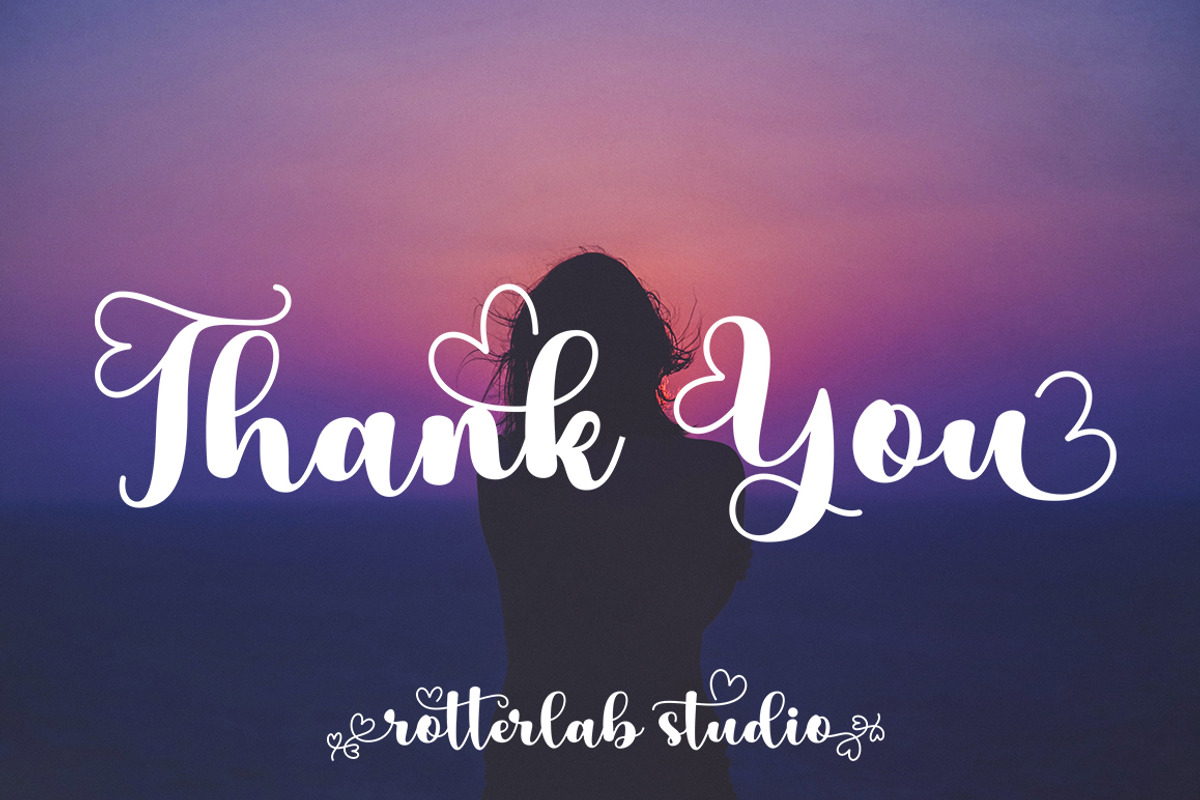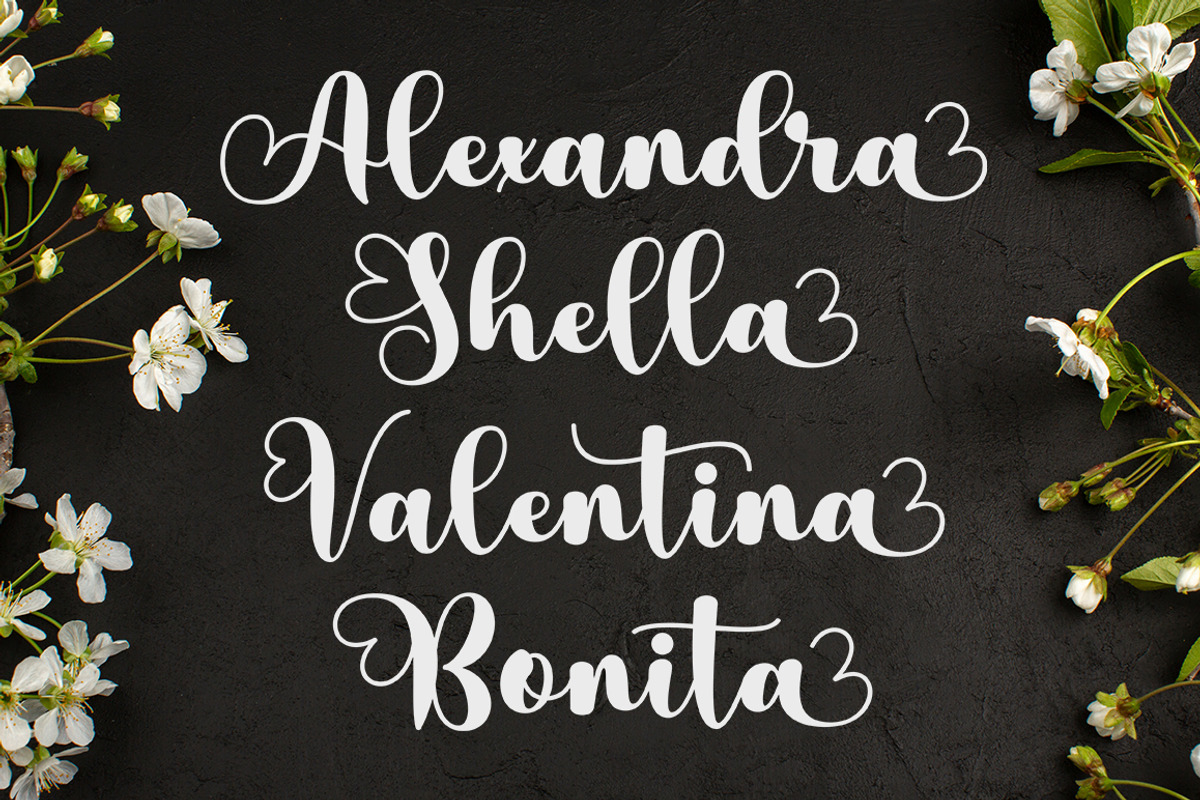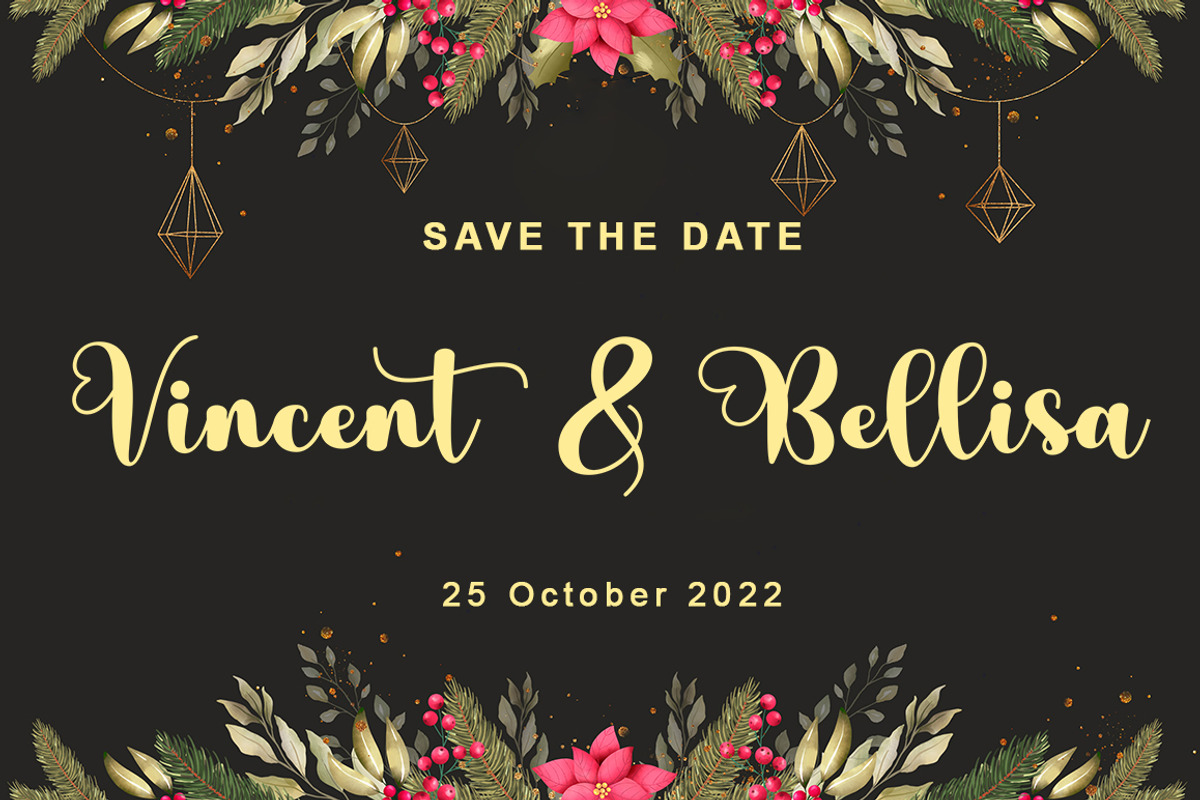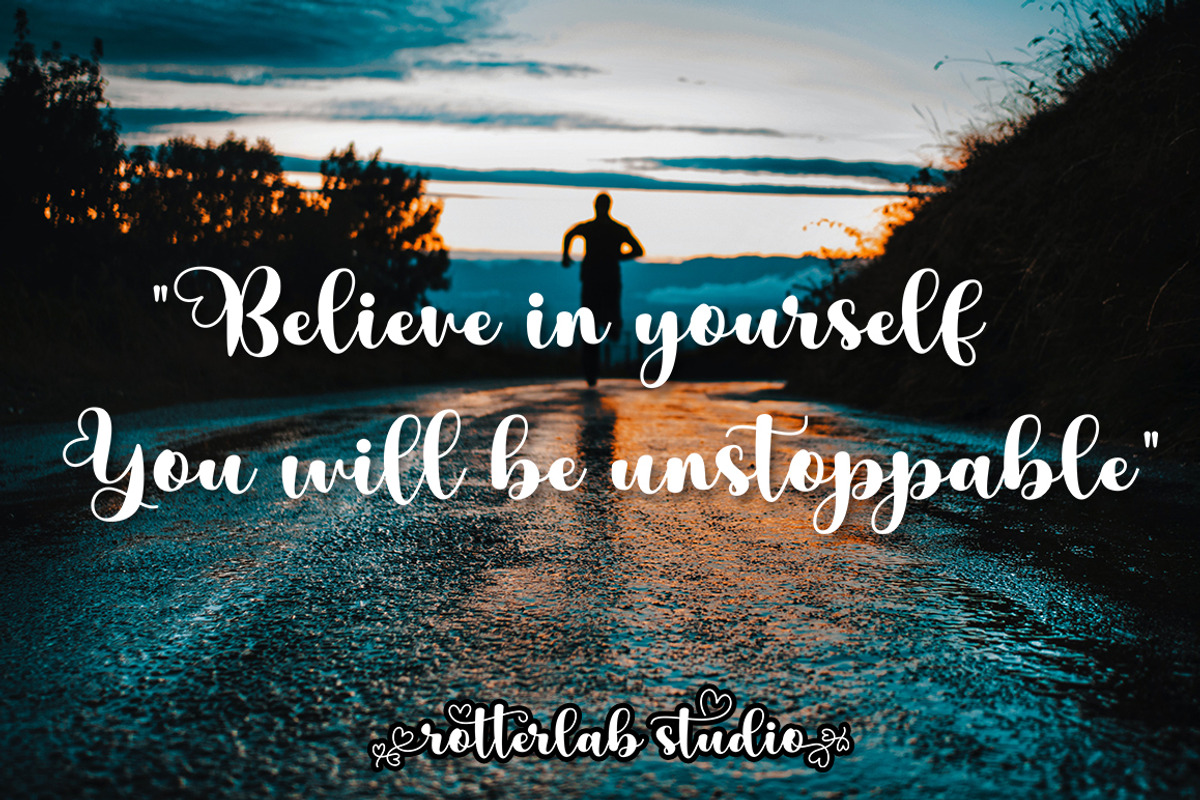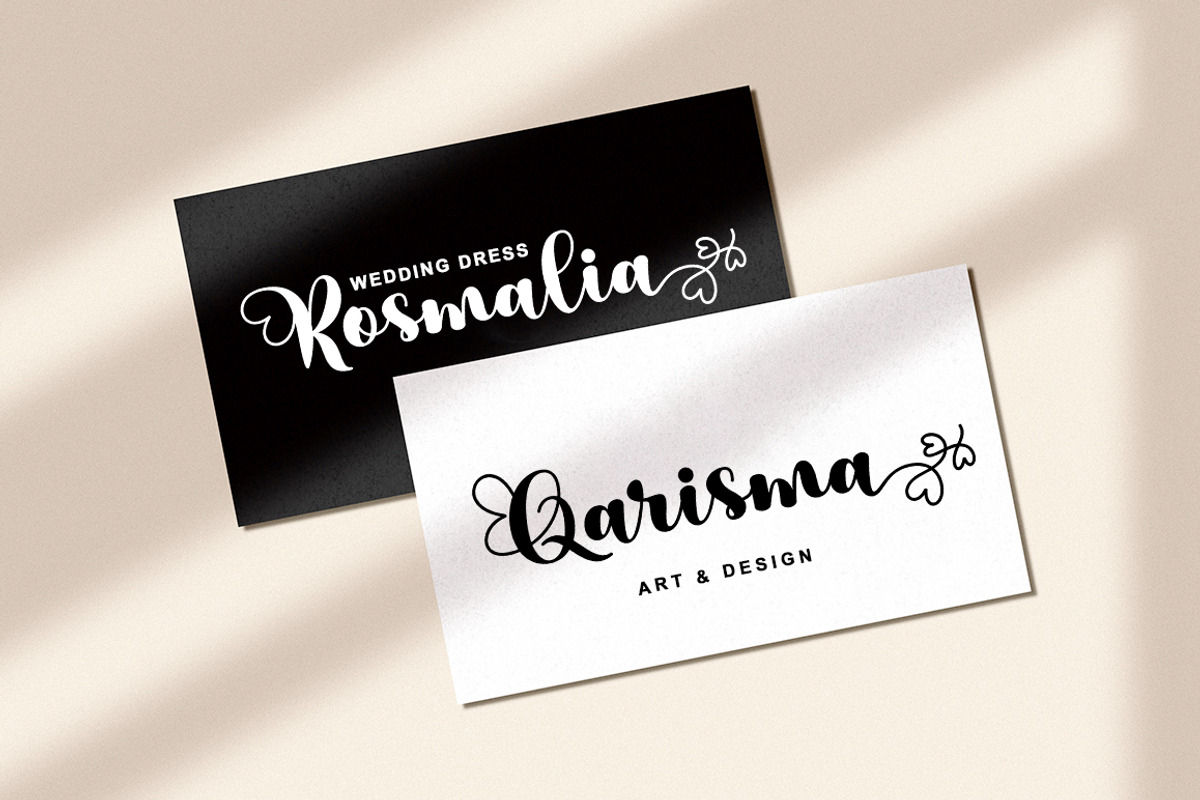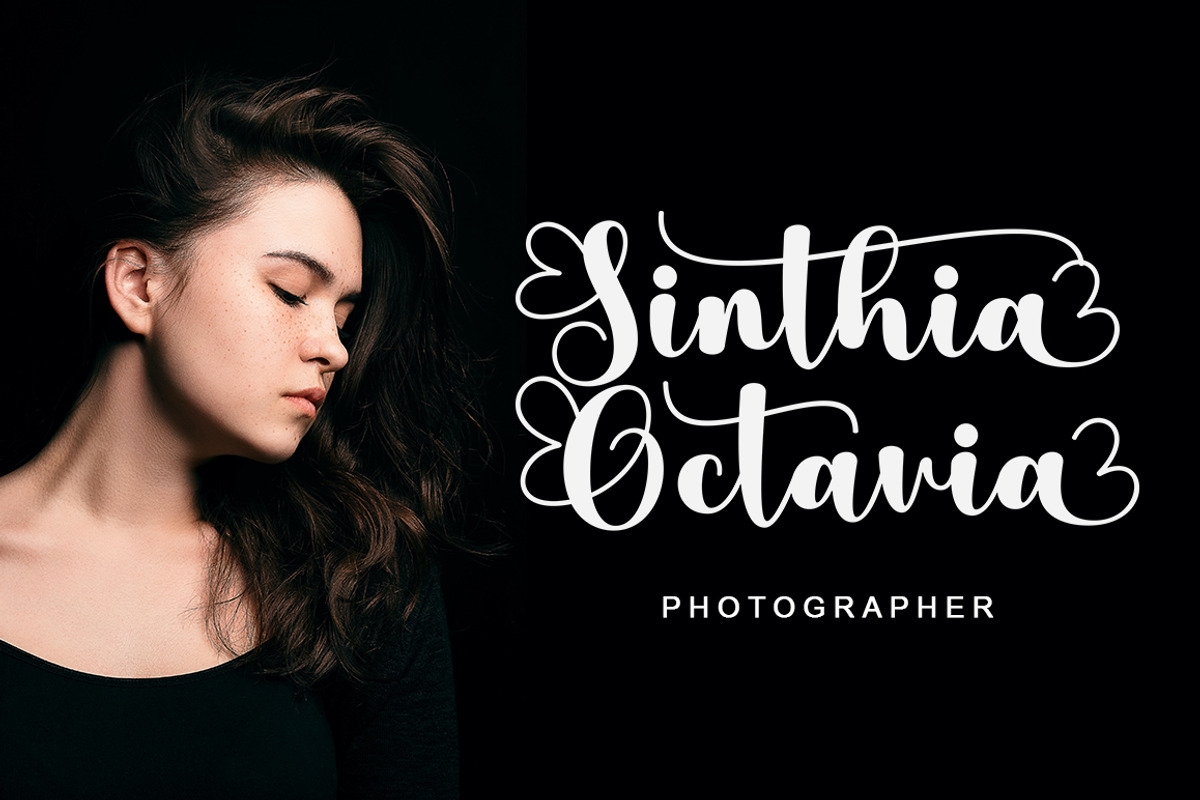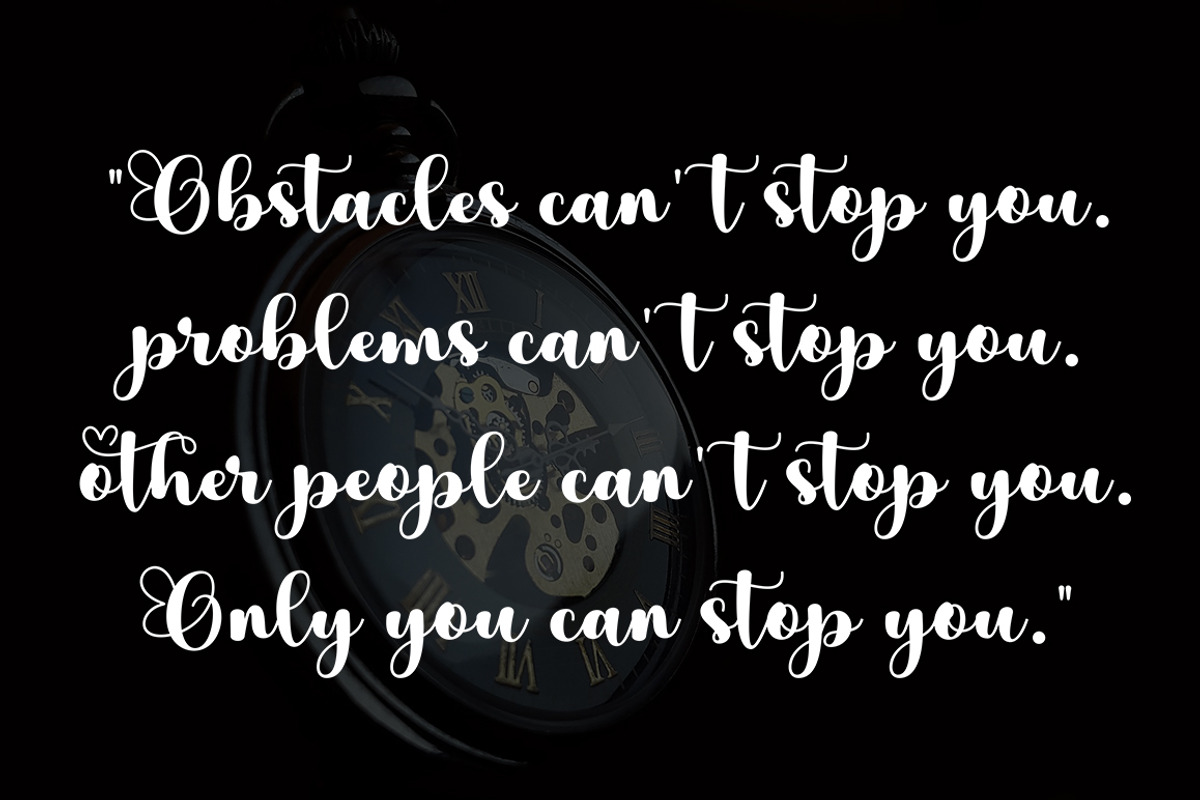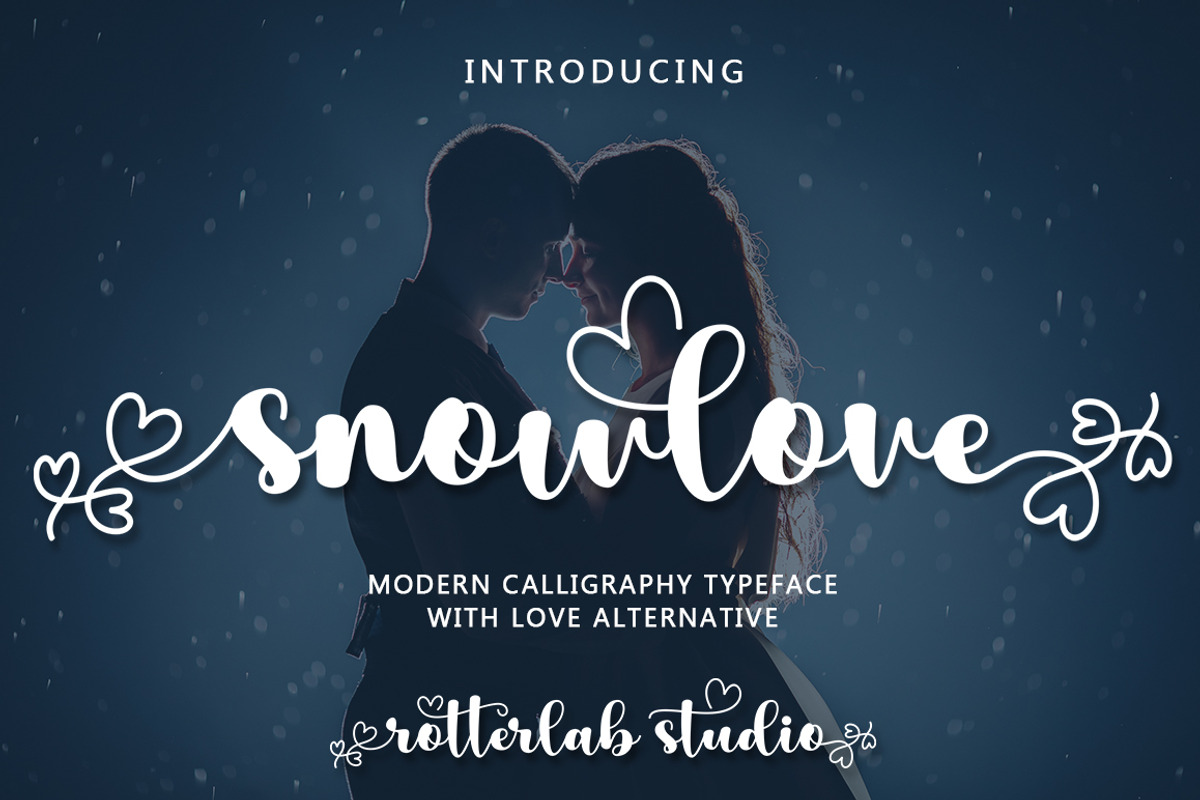
Snowlove
INTRODUCING
Snowlove a lovely script font family is a beautiful script font. It features love-themed characters that will take your projects to the next level!
This font is PUA code which means you can easily access all the glyphs and swashes that are full of love! It also features many special features including glyphs and alternate ligatures.
font Designs that are made for various vector designs, printing such as digital wedding blogs, online shops, social media, while printing can be used in the field of product clothing, accessories, bags, pins, logos, business cards, watermarks and many others ...
so it can make your product look cute and attractive, and also Multilingual support!!!